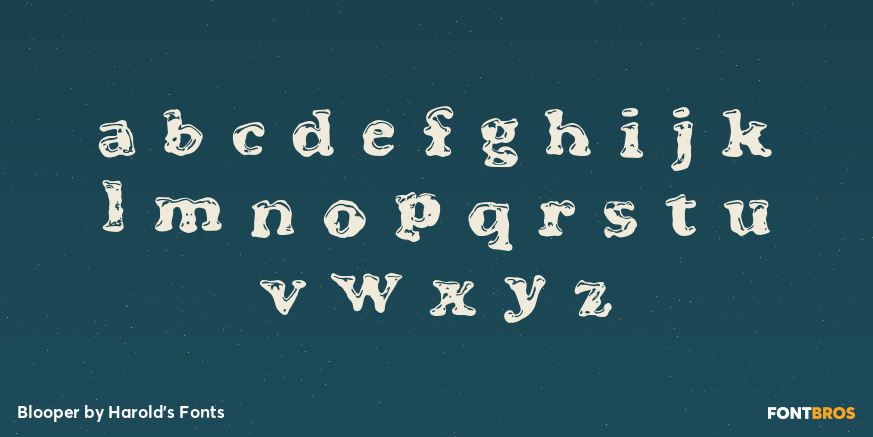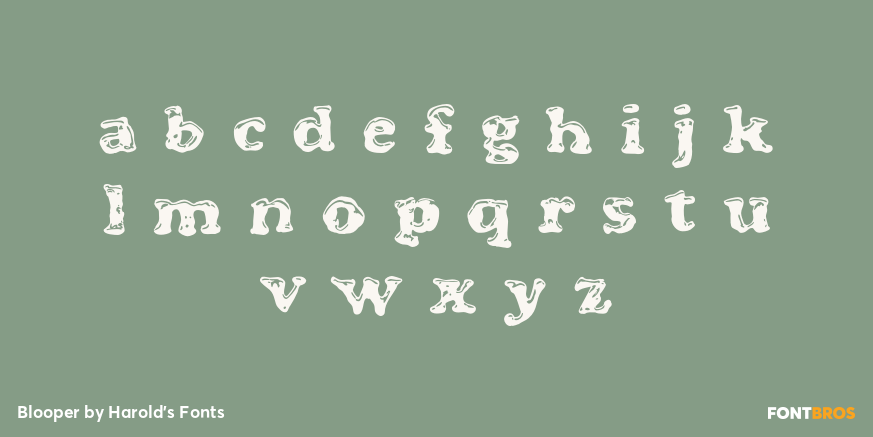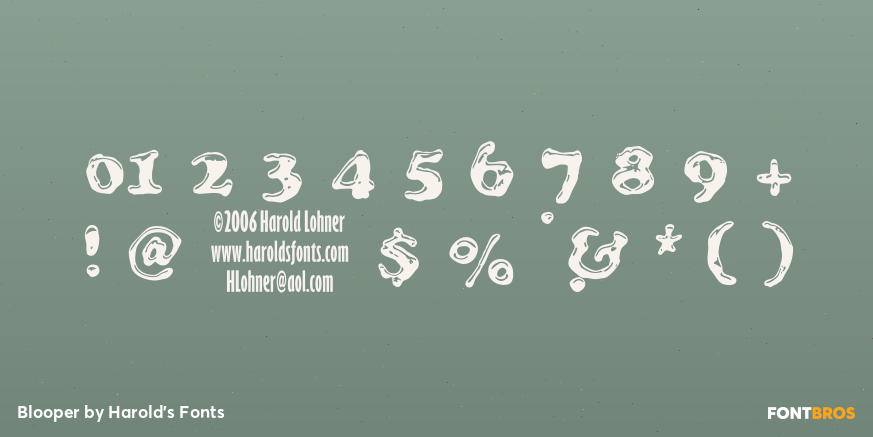
Blooper
Font Family by Harold's Fonts
Blooper was created to have the look of letters formed by puddles of shiny liquid. The general form was inspired by the classic font Cooper Black (Oswald Cooper, 1921). Although I probably could have faked it in Photoshop, I actually drew all the letters with glossy 3-D acrylic paint, and then scanned it. The paint bottles have a definite tendency to bloop! The Solid font has no highlights and can be layered behind the Regular in a different color.